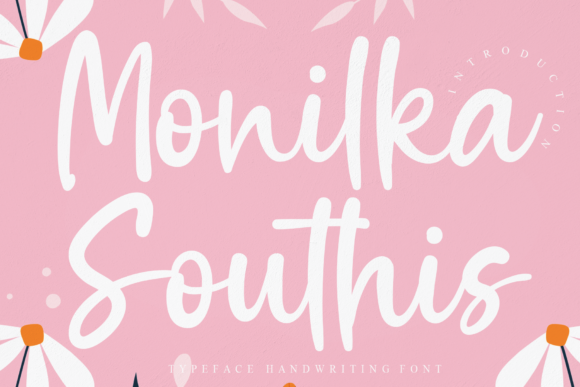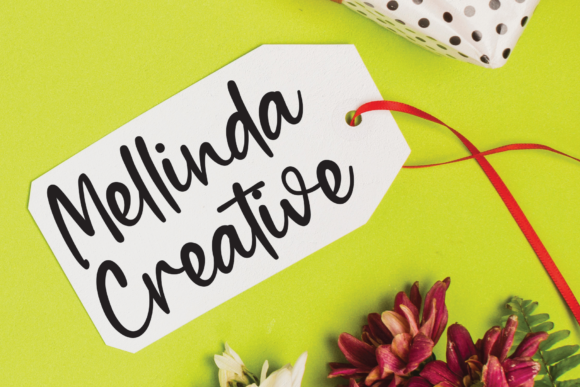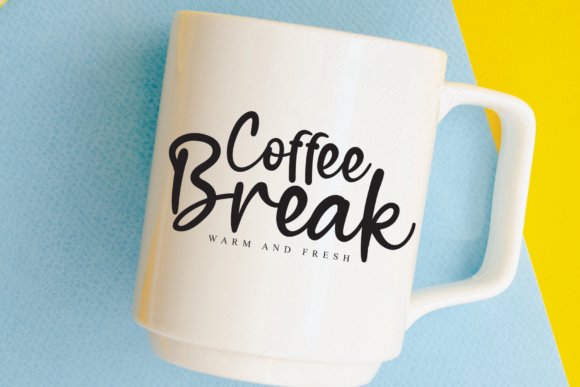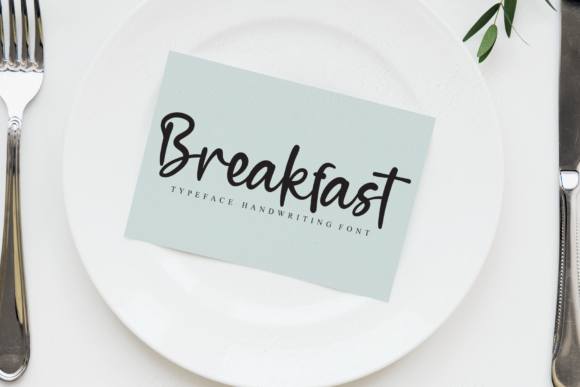
About Monilka Southis Font
Monilka Southis is a sweet and flowing handwritten font, created with the help of a brush pen. Dainty and joyful, this font will be ideal for writing wedding invitations, cards or any other design that may need a romantic, personalized touch!